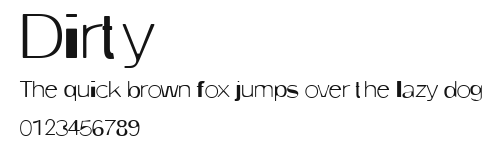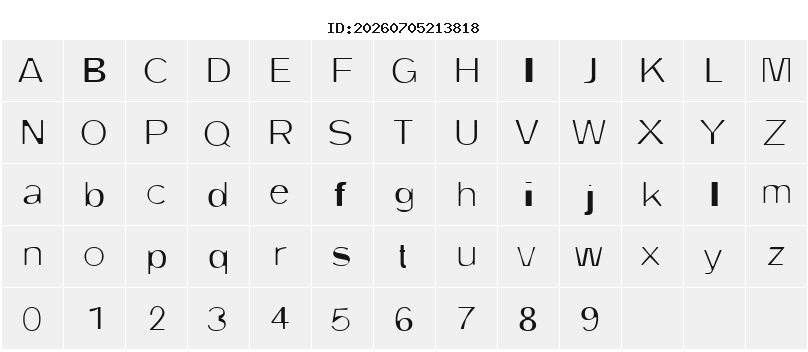
• Font Name: Dirty
About Dirty.ttf
Dirty.ttf is a modern, elegant sans-serif font designed for ultimate readability and visual harmony. Perfect for branding, headlines, web design, and print materials.